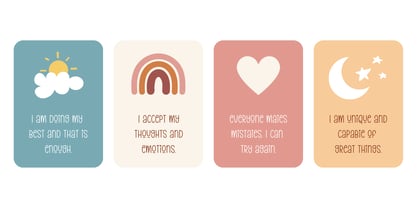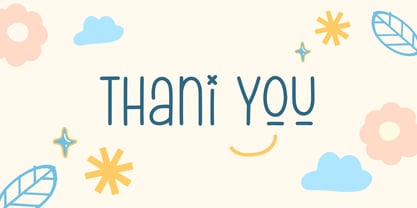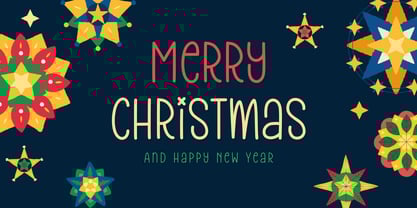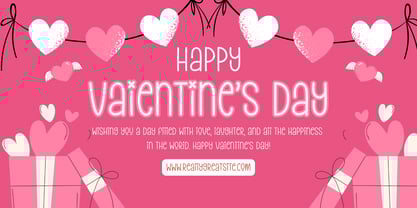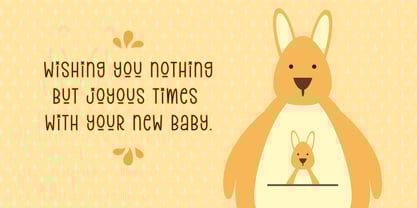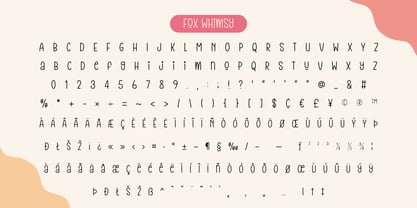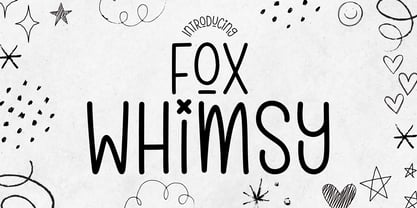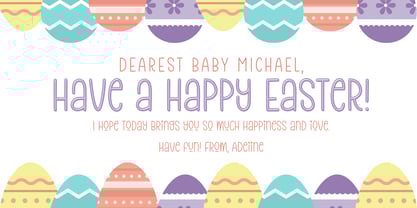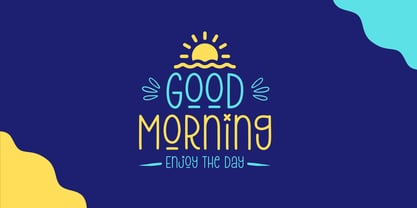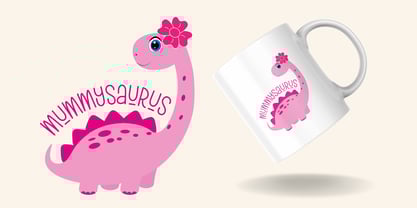
Fox Whimsy
The Fox Whimsy Font Family was designed by Rattana Rattanawan and published by Fox7. Fox Whimsy contains 1 styles. More about this family
Fox Whimsy is a delightful handwritten font with a fun and quirky charm. Its tall, playful letterforms and smooth curves create a friendly and inviting feel, perfect for projects that need a touch of creativity and joy. The font’s slightly irregular strokes add a whimsical personality, making it ideal for children's books, branding, greeting cards, social media, and more. Whether you're designing something cute, fun, or lighthearted, Fox Whimsy will bring warmth and character to your work.